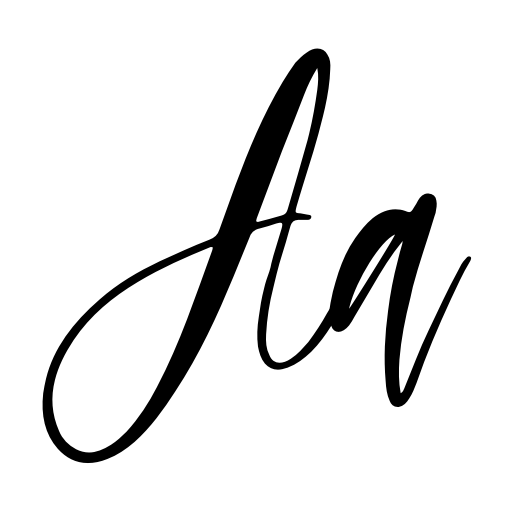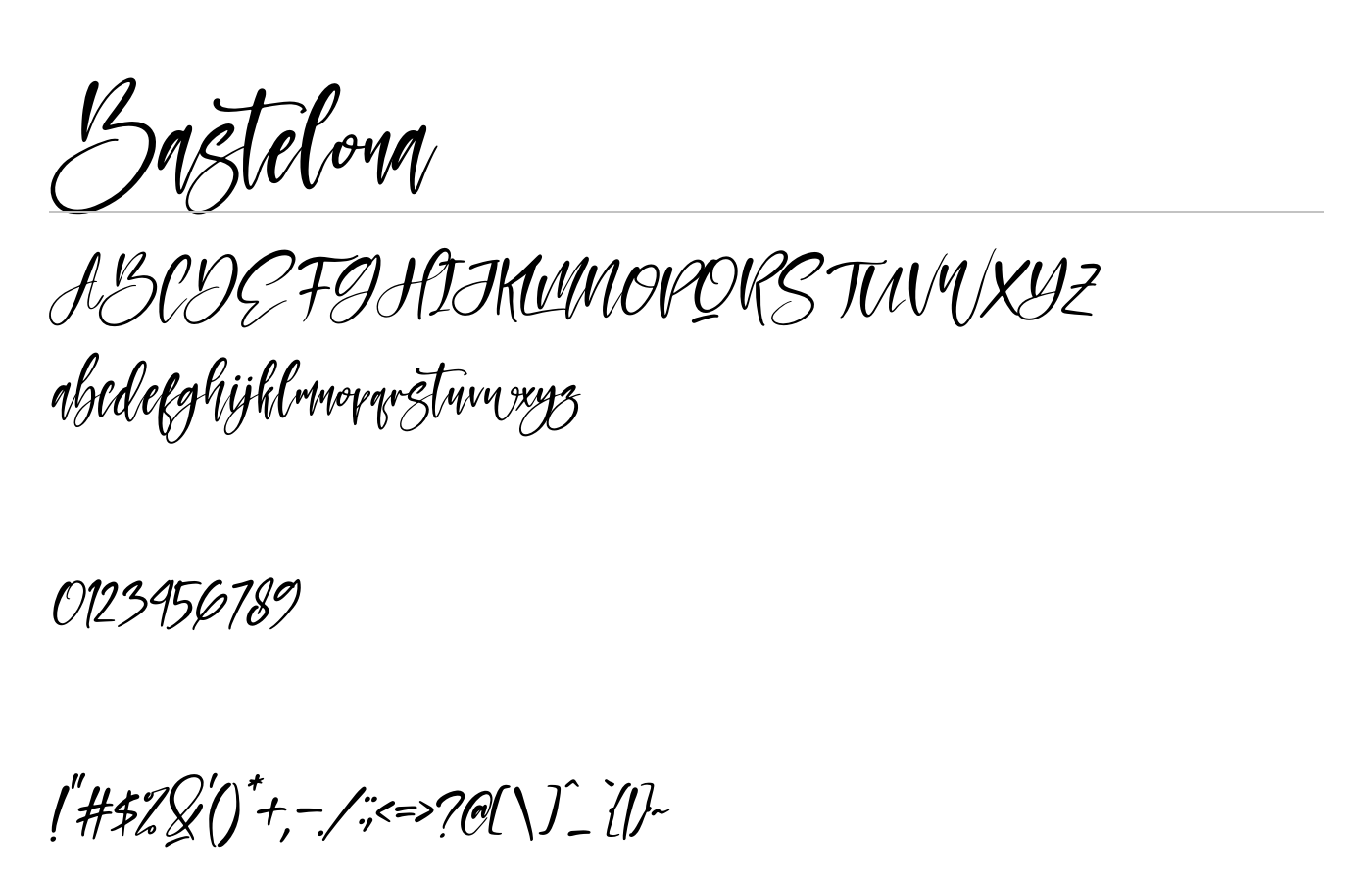
Bastelona is a stylish script font with a lively, hand-lettered feel, featuring fluid strokes and elegant, flowing letterforms. Its lightweight, narrow character shapes and varying stroke widths give it a sophisticated yet casual vibe, making it perfect for creative branding, invitations, and artistic projects where a personal, expressive touch is desired. This font works well in display uses like logos and headlines, adding charm and warmth without overwhelming the design.
Bastelona Font
About Bastelona Font